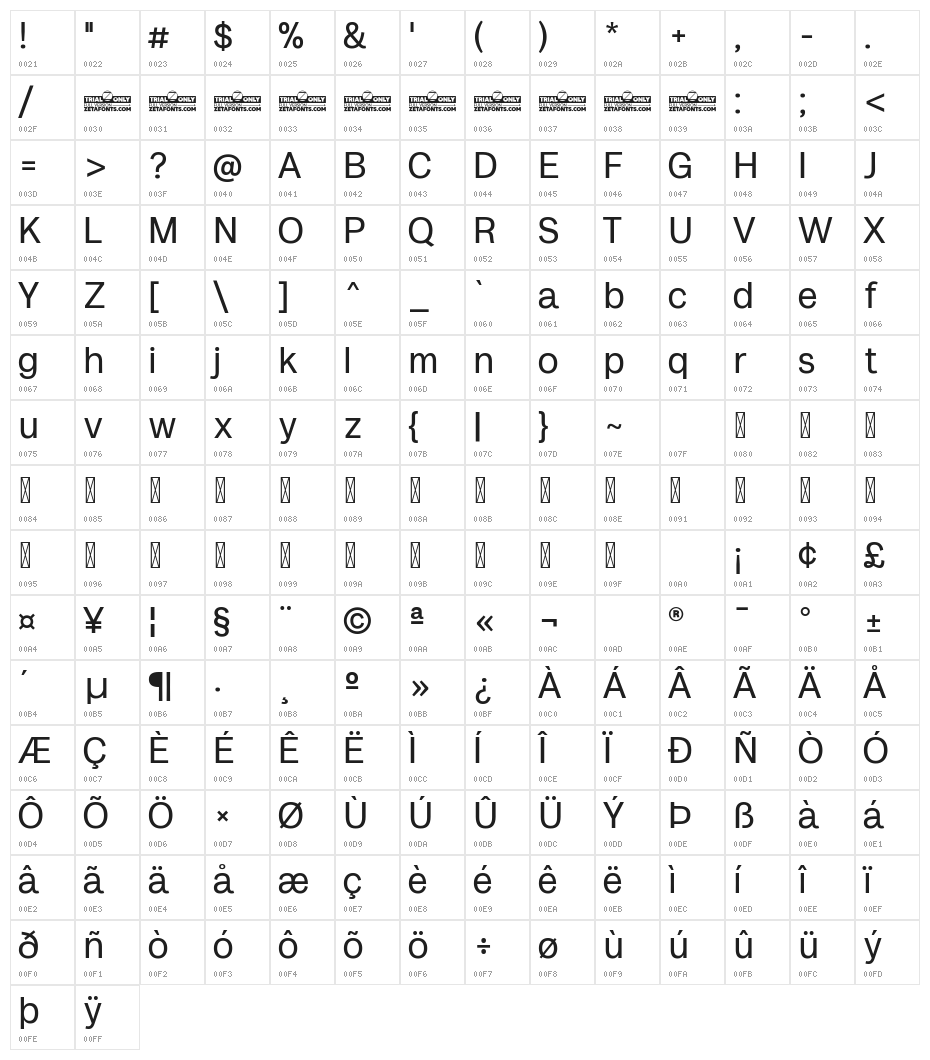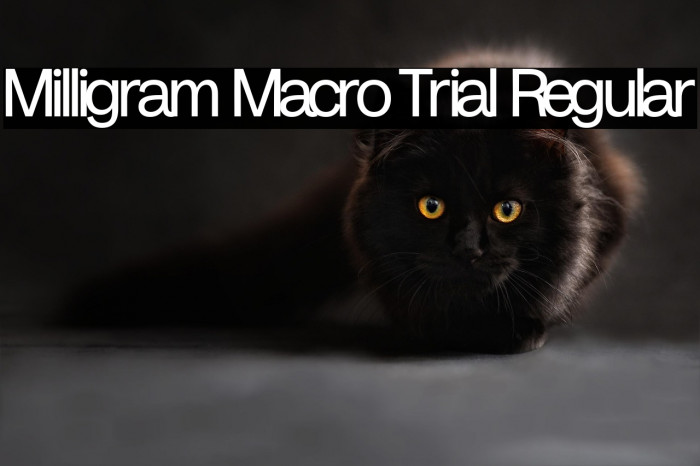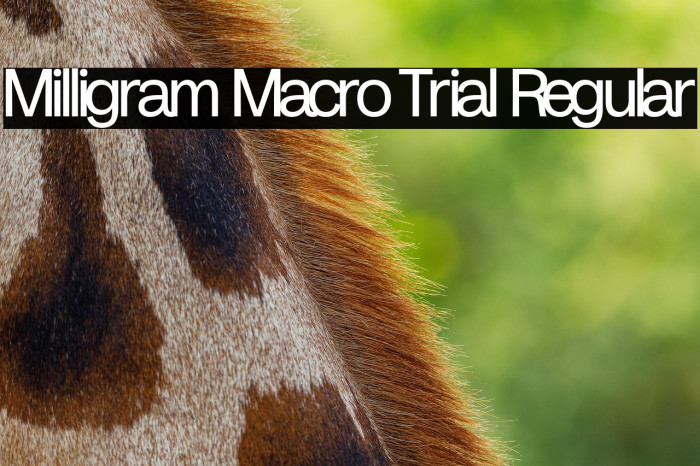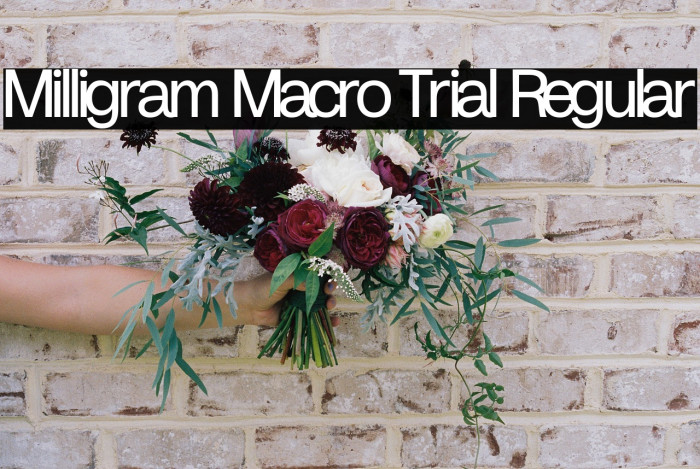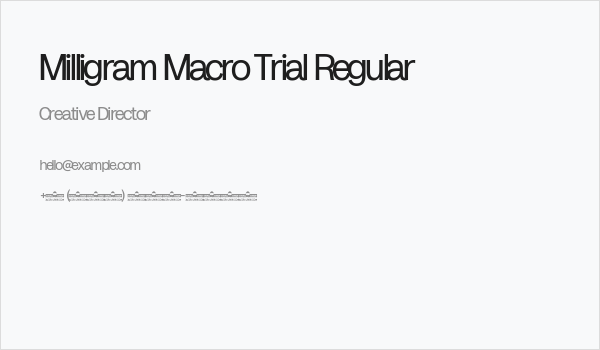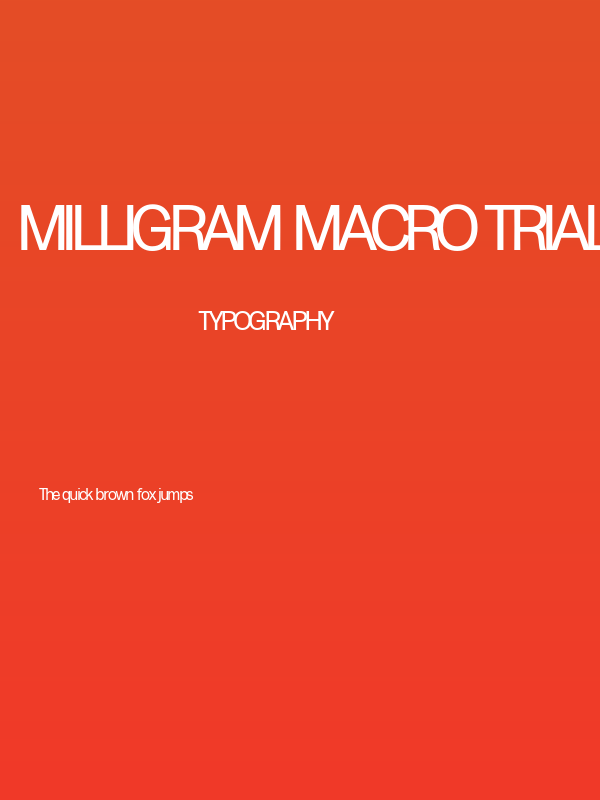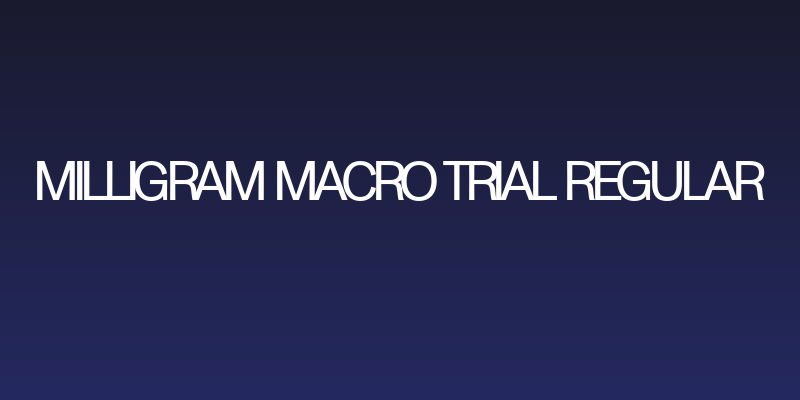
Milligram Macro Trial Regular Font
Milligram Macro Trial Regular Description
This font features a clean and modern sans-serif style with a geometric structure. The characters are uniform in width, providing a balanced and harmonious appearance. The uppercase letters are bold and impactful, while the lowercase letters maintain a consistent height, enhancing readability. The numerals are clear and distinct, making them suitable for various applications. Special characters are well-defined, adding versatility to the font's usage. The overall design is sleek and contemporary, ideal for projects that require a professional and polished look.
| Proposed Projects | Ideal for branding, advertising, web design, and editorial projects where a modern and professional appearance is desired. |